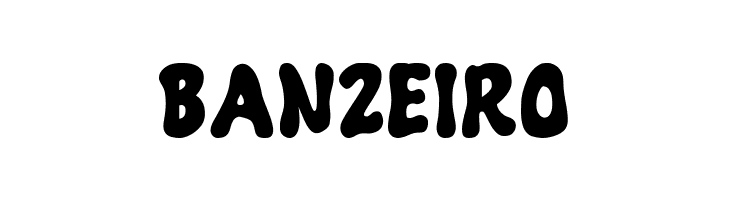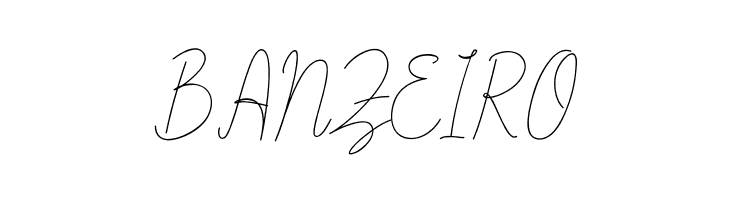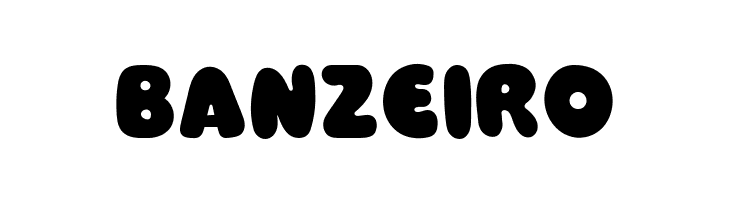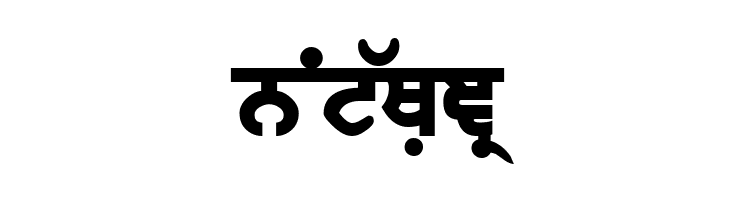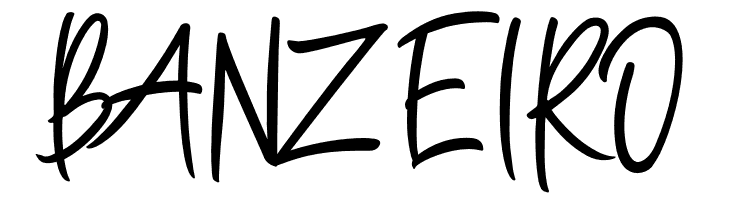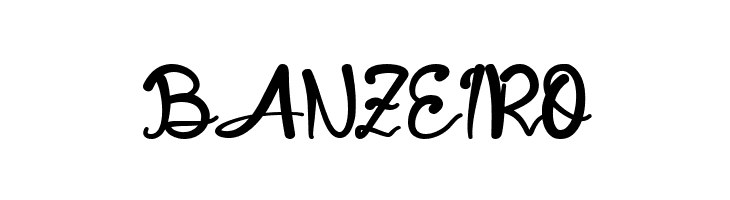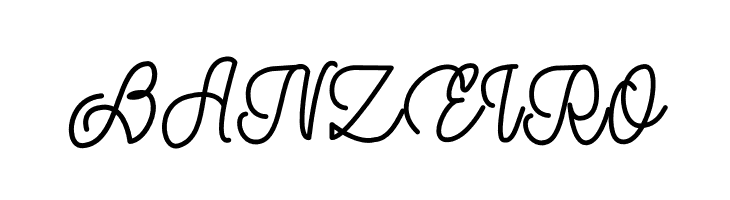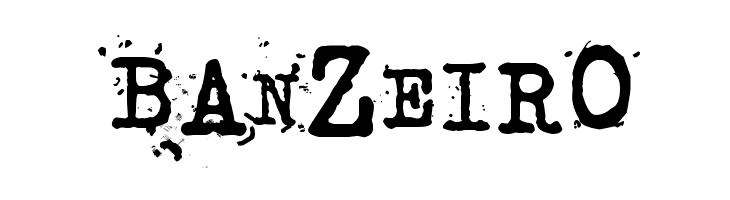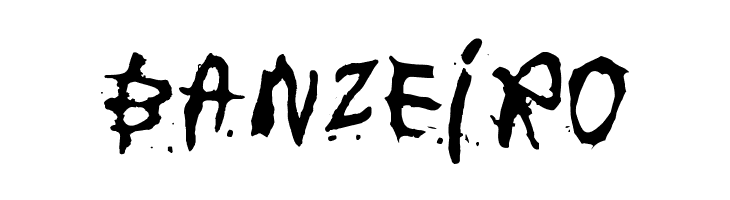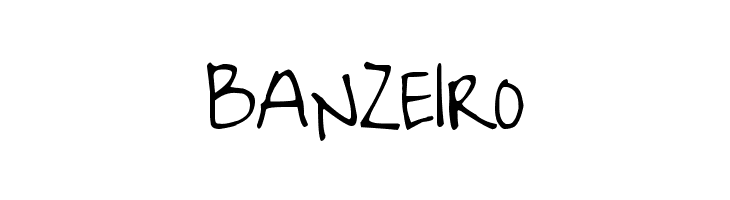
• Janmeja2000J
• Janmeja2000W Normal
• Janmeja2000WB ExtraBold
• Japers
A bold, playful font with dynamic, irregular letterforms.
• Japers
A bold, playful font with a whimsical and dynamic style.
• Jazz Club
A bold, decorative font with a jazz-inspired, rhythmic design.
• Jefferies
• Jefferies Bold Italic
A bold, italicized font with a futuristic and angular design.
• Jeliya elbern
An elegant script font with flowing, ornate cursive letters and intricate flourishes.
• Jelly Berry
A playful, handwritten font with bold, rounded strokes and a casual, friendly style.
• Jellyo
A playful, bold font with rounded, bubbly characters and a whimsical style.
• Jendra
A lively, expressive script font with fluid, cursive strokes and playful loops.
• Jeullyta
A bold, energetic script font with fluid, expressive strokes.
• jey
A dynamic, cursive script font with expressive, flowing strokes.
• Jitting
A lively and dynamic script font with fluid, connected letterforms.
• Jokers
Cartoonish, prank-themed illustrative font with each character as a unique comic drawing.
• Jonny Quest Classic
A dynamic and playful script font with fluid, cursive letterforms.
• Joyeux
A bold, vintage-inspired font with a strong, authoritative presence.
• Joyeux Bold
A bold, vintage-inspired serif typeface with strong, thick strokes.
• Joyful Juliana
A playful, hand-drawn font with a casual and lively appearance.
• Juice it up Italic
A playful, handwritten font with bold, rounded strokes and a dynamic slant.
• Juicebox
A bold, rounded font with a modern and playful aesthetic.
• Juicy Fruity Plain